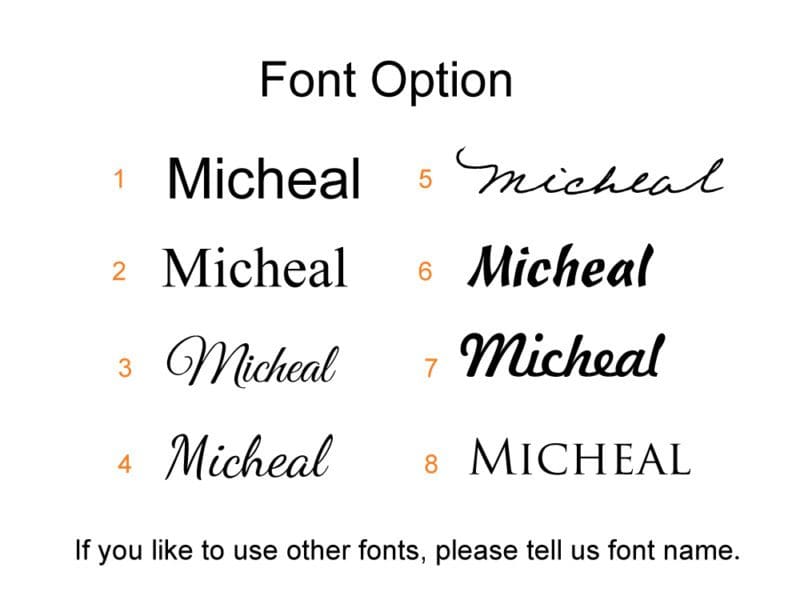
What Is The Best Font For Name Tags . It’s best to avoid using any cursive, serif, or italic fonts for name tags. We can help you narrow down your options so you can find the perfect font for your event name badges. Explore the best fonts for labels in our comprehensive guide, featuring tips on readability, branding, and making your products. What is a good font for name tags? The first name should be quite large so as to be readable from a distance. Here are four of our best tips to help you impress your event guests. Let’s delve into why font choice is critical and how it affects the look and usability of. The right font can turn a basic name plate into a stylish declaration of your identity or brand. The best fonts for name tags are ones that are easy to read from a distance, including gotham, arial, myriad pro, helvetica, or futura.
The first name should be quite large so as to be readable from a distance. Here are four of our best tips to help you impress your event guests. We can help you narrow down your options so you can find the perfect font for your event name badges. The right font can turn a basic name plate into a stylish declaration of your identity or brand. What is a good font for name tags? It’s best to avoid using any cursive, serif, or italic fonts for name tags. Explore the best fonts for labels in our comprehensive guide, featuring tips on readability, branding, and making your products. The best fonts for name tags are ones that are easy to read from a distance, including gotham, arial, myriad pro, helvetica, or futura. Let’s delve into why font choice is critical and how it affects the look and usability of.
What Is The Best Font For Name Tags It’s best to avoid using any cursive, serif, or italic fonts for name tags. It’s best to avoid using any cursive, serif, or italic fonts for name tags. The best fonts for name tags are ones that are easy to read from a distance, including gotham, arial, myriad pro, helvetica, or futura. Let’s delve into why font choice is critical and how it affects the look and usability of. Explore the best fonts for labels in our comprehensive guide, featuring tips on readability, branding, and making your products. Here are four of our best tips to help you impress your event guests. What is a good font for name tags? We can help you narrow down your options so you can find the perfect font for your event name badges. The first name should be quite large so as to be readable from a distance. The right font can turn a basic name plate into a stylish declaration of your identity or brand.
Create Beautiful Name Tags in Microsoft Word YouTube What Is The Best Font For Name Tags The first name should be quite large so as to be readable from a distance. Here are four of our best tips to help you impress your event guests. It’s best to avoid using any cursive, serif, or italic fonts for name tags. We can help you narrow down your options so you can find the perfect font for your. What Is The Best Font For Name Tags.
Free Font Collection 18 Modern Fonts — Journey With Jess Inspiration What Is The Best Font For Name Tags It’s best to avoid using any cursive, serif, or italic fonts for name tags. Let’s delve into why font choice is critical and how it affects the look and usability of. What is a good font for name tags? Here are four of our best tips to help you impress your event guests. Explore the best fonts for labels in. What Is The Best Font For Name Tags.
Tag Type Font Free Fonts What Is The Best Font For Name Tags Explore the best fonts for labels in our comprehensive guide, featuring tips on readability, branding, and making your products. It’s best to avoid using any cursive, serif, or italic fonts for name tags. What is a good font for name tags? Here are four of our best tips to help you impress your event guests. Let’s delve into why font. What Is The Best Font For Name Tags.
Custom Font Custom Name Sign / Baby Door Sign / Baby Room Decor What Is The Best Font For Name Tags The right font can turn a basic name plate into a stylish declaration of your identity or brand. Explore the best fonts for labels in our comprehensive guide, featuring tips on readability, branding, and making your products. The first name should be quite large so as to be readable from a distance. What is a good font for name tags?. What Is The Best Font For Name Tags.
50 Best Free Fonts For Logo Designer by Logo Design Ideas on Dribbble What Is The Best Font For Name Tags The best fonts for name tags are ones that are easy to read from a distance, including gotham, arial, myriad pro, helvetica, or futura. Let’s delve into why font choice is critical and how it affects the look and usability of. Explore the best fonts for labels in our comprehensive guide, featuring tips on readability, branding, and making your products.. What Is The Best Font For Name Tags.
How to Pick the Right Fonts for Your Brand Venngage What Is The Best Font For Name Tags Here are four of our best tips to help you impress your event guests. What is a good font for name tags? Explore the best fonts for labels in our comprehensive guide, featuring tips on readability, branding, and making your products. The right font can turn a basic name plate into a stylish declaration of your identity or brand. Let’s. What Is The Best Font For Name Tags.
Best Fonts For Name Signs at Serena Heasley blog What Is The Best Font For Name Tags The right font can turn a basic name plate into a stylish declaration of your identity or brand. We can help you narrow down your options so you can find the perfect font for your event name badges. Here are four of our best tips to help you impress your event guests. It’s best to avoid using any cursive, serif,. What Is The Best Font For Name Tags.
Printable Name Tags Template What Is The Best Font For Name Tags It’s best to avoid using any cursive, serif, or italic fonts for name tags. The first name should be quite large so as to be readable from a distance. What is a good font for name tags? We can help you narrow down your options so you can find the perfect font for your event name badges. The right font. What Is The Best Font For Name Tags.
This item is unavailable Etsy Name tags, Ra ideas, Door tags What Is The Best Font For Name Tags What is a good font for name tags? The first name should be quite large so as to be readable from a distance. We can help you narrow down your options so you can find the perfect font for your event name badges. Let’s delve into why font choice is critical and how it affects the look and usability of.. What Is The Best Font For Name Tags.